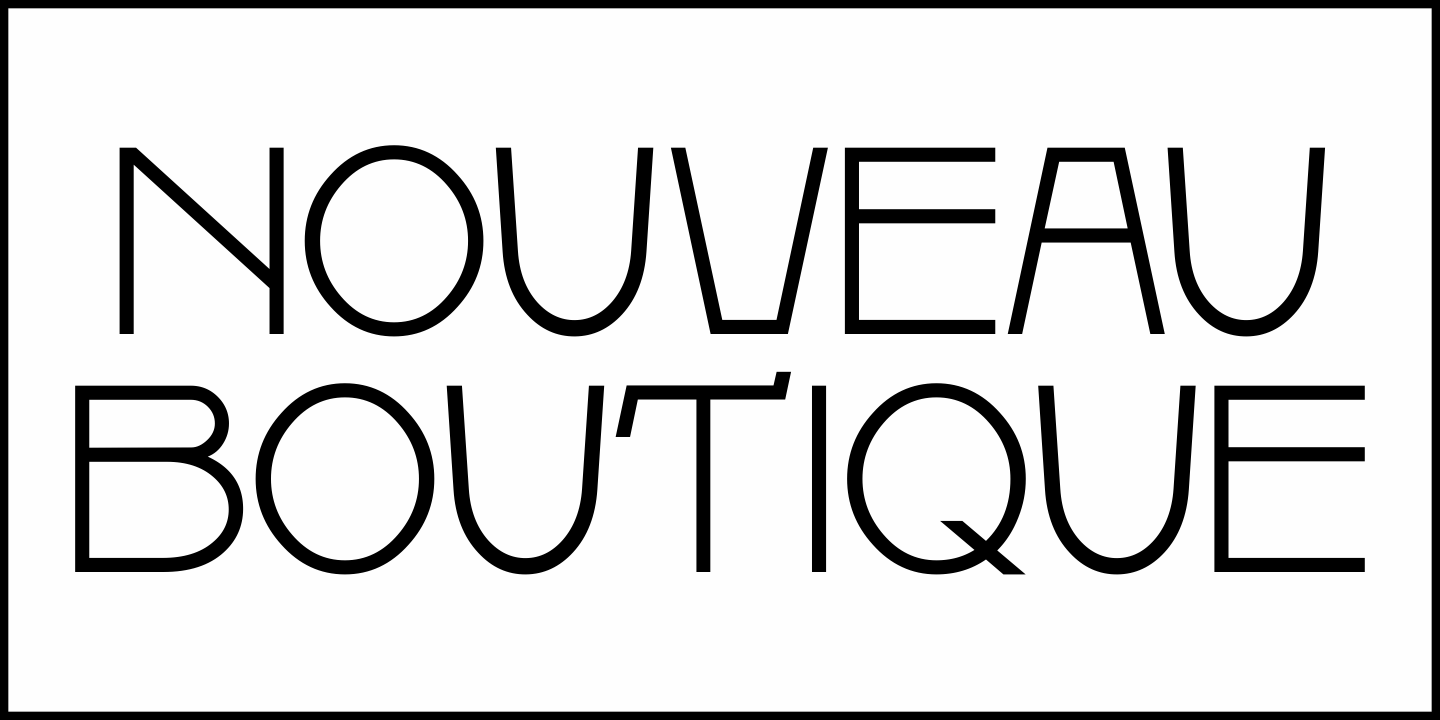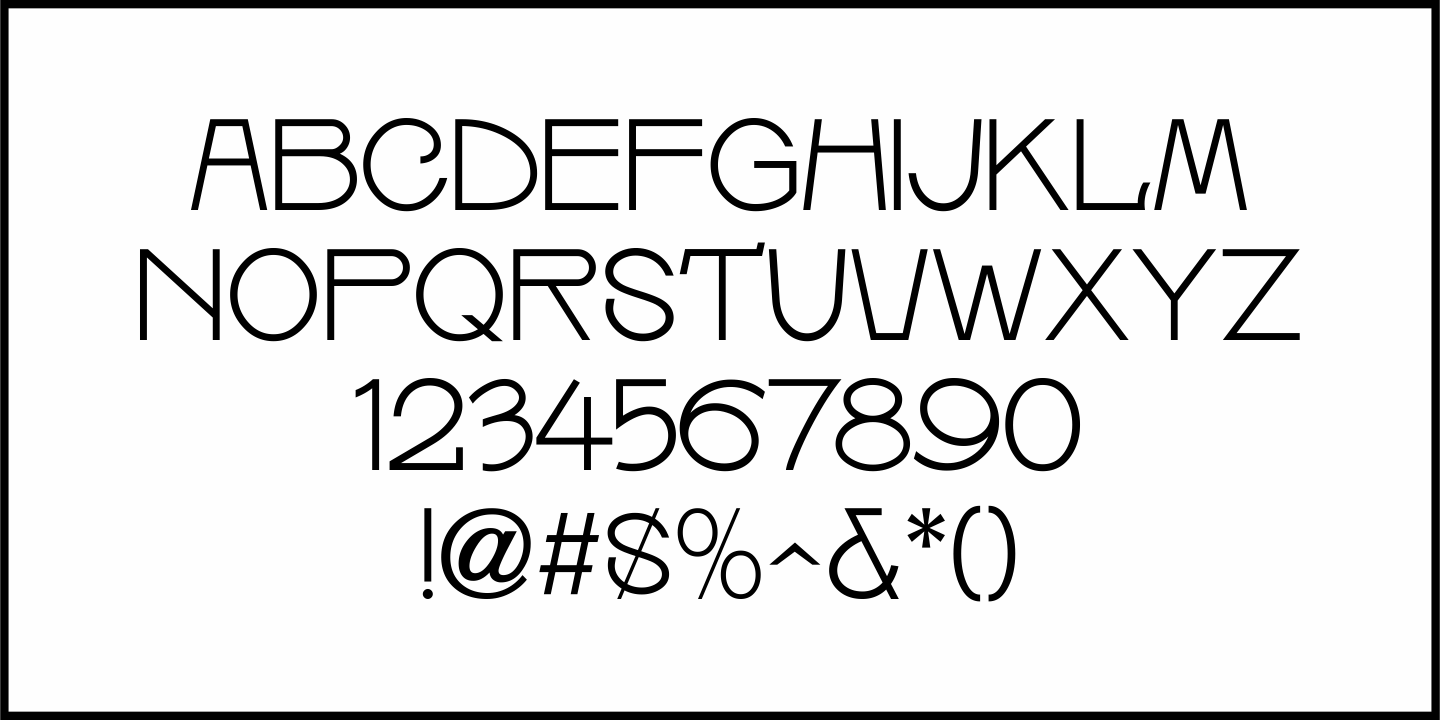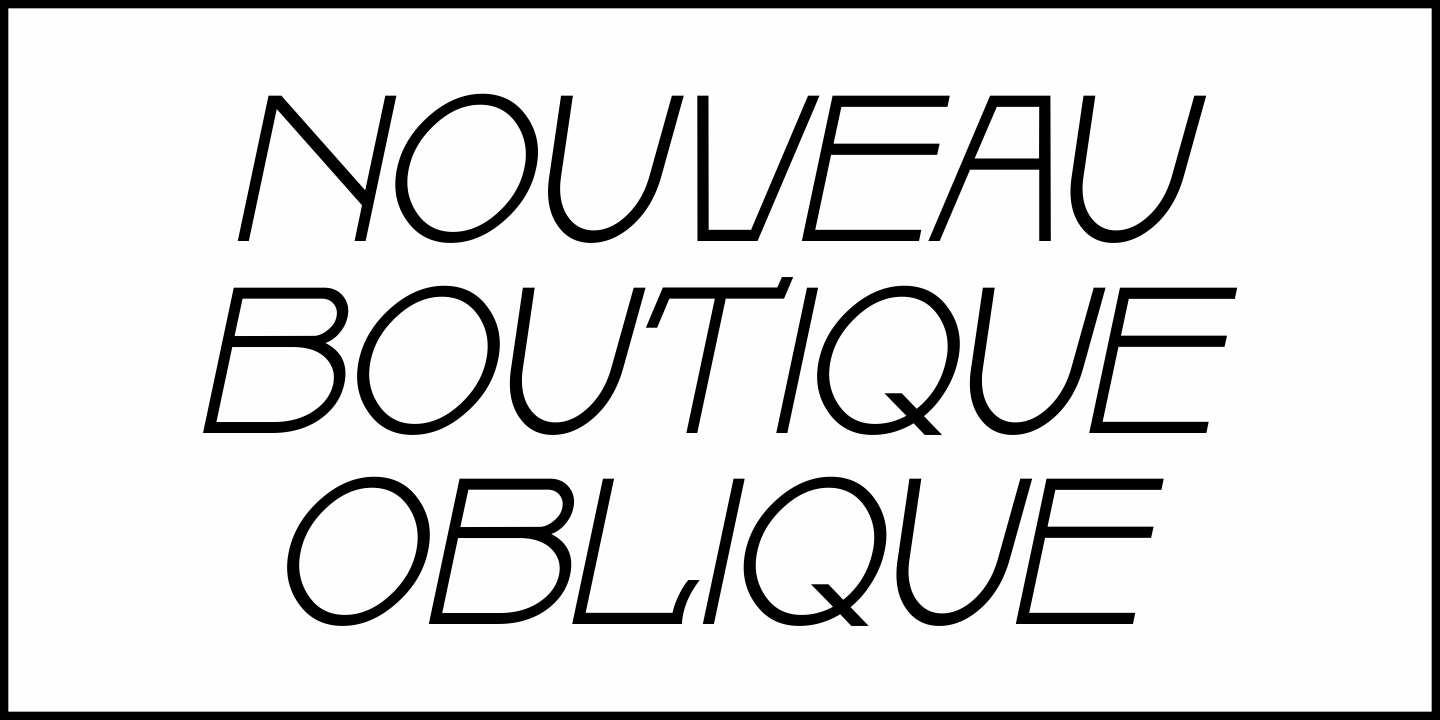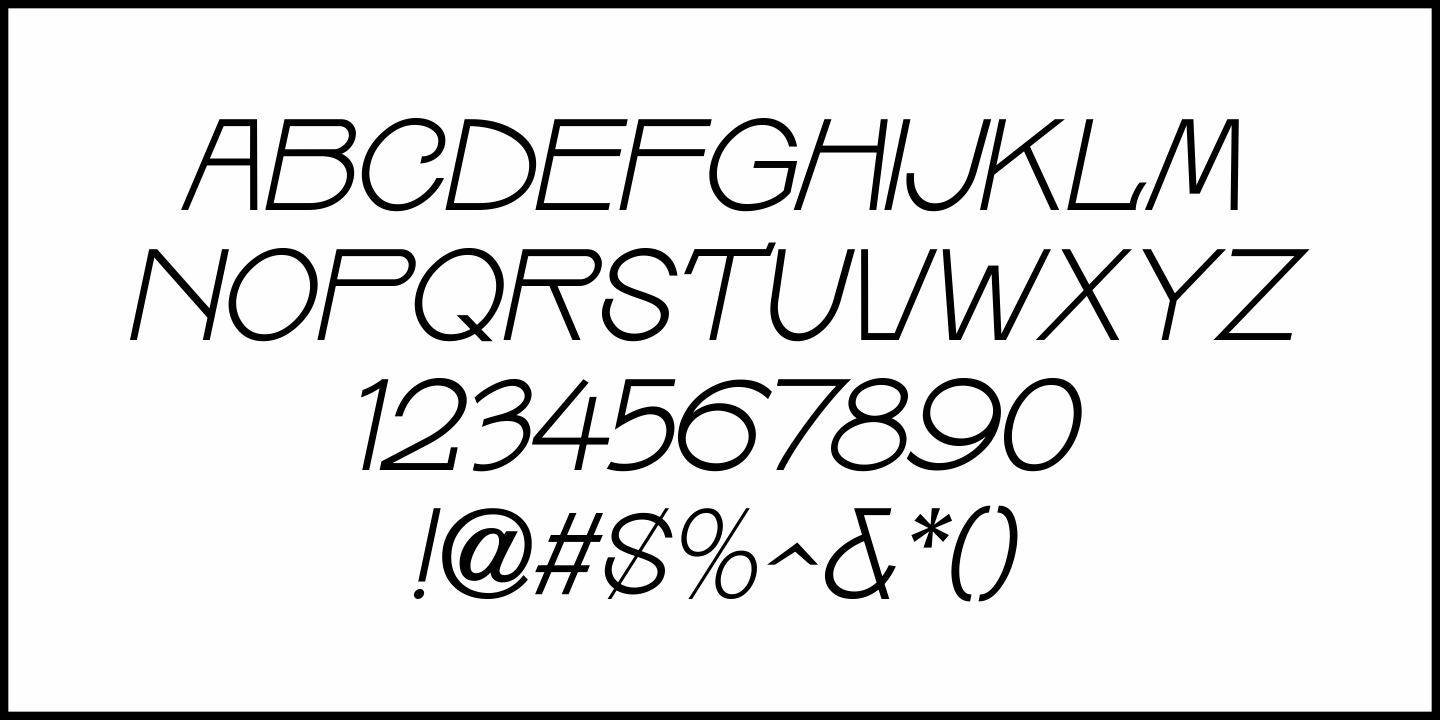
Nouveau Boutique
A light and playful sans serif type design with Art Nouveau influences was called “Tasso” within the pages of the 1893 edition of the Barnhart Bros. & Spindler type specimen book.
This is now available as Nouveau Boutique JNL in both regular and oblique versions.
Nouveau Boutique JNL Regular by Jeff Levine Fonts